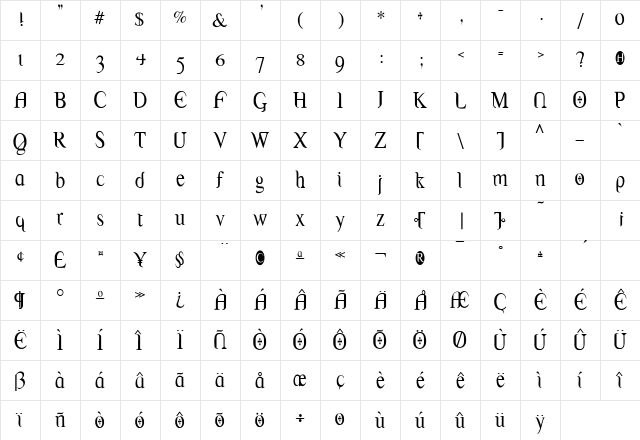
Thessaly Medium
Thessaly Family
Thessaly Medium
Design Context for Thessaly
Thessaly is a composed and adaptable typeface that performs quietly and consistently across a wide range of design contexts.